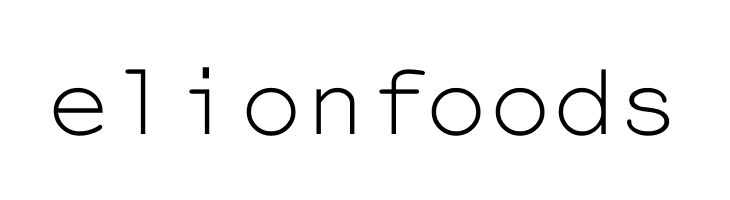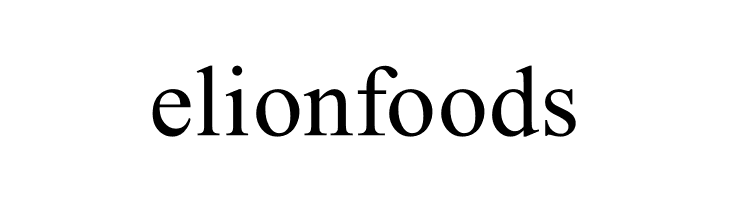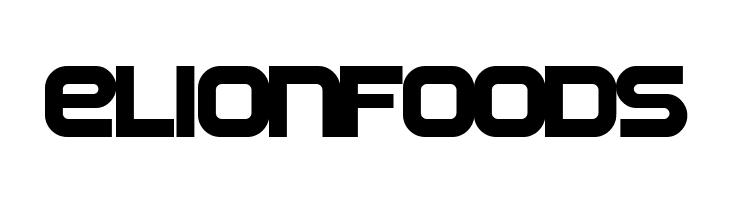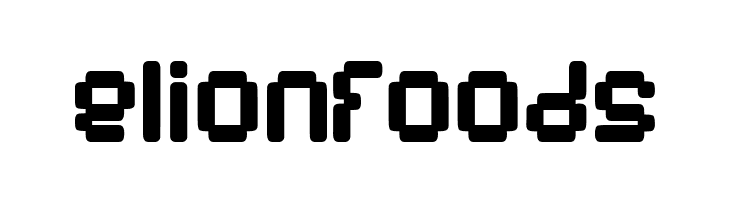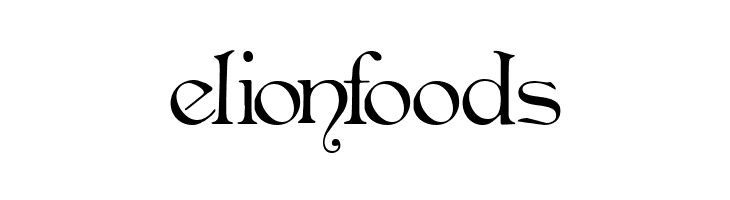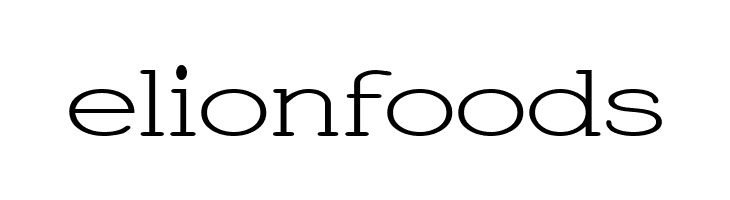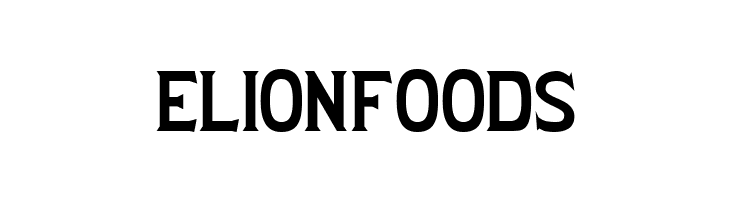
A bold, dynamic font with unique curves and artistic flair.
A bold, geometric sans-serif font with uniform stroke widths and a modern look.
A futuristic, geometric font with bold, blocky letterforms and consistent stroke width.
An elegant and decorative serif font with intricate details and ornamental flair.
A sophisticated Art Deco-inspired font with geometric shapes and elegant curves.
A modern, wide-stanced font with clean lines and balanced proportions.
A classic serif font with elegant strokes and a traditional aesthetic.